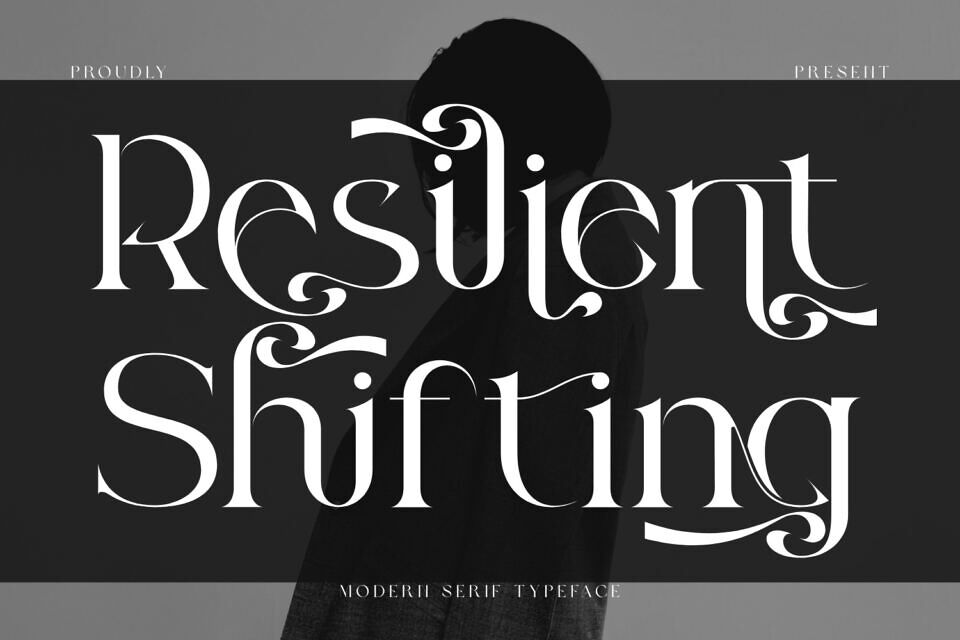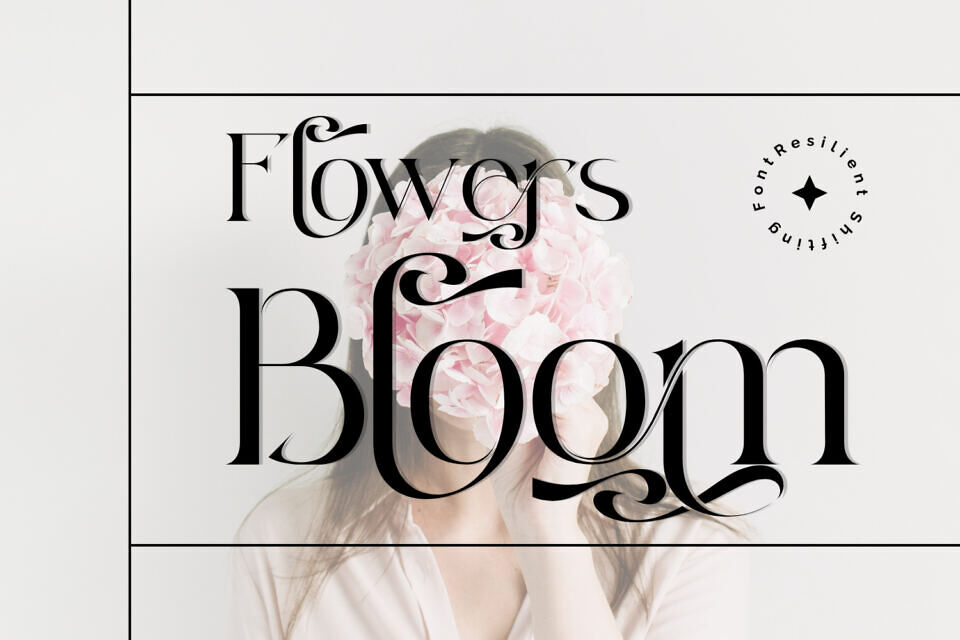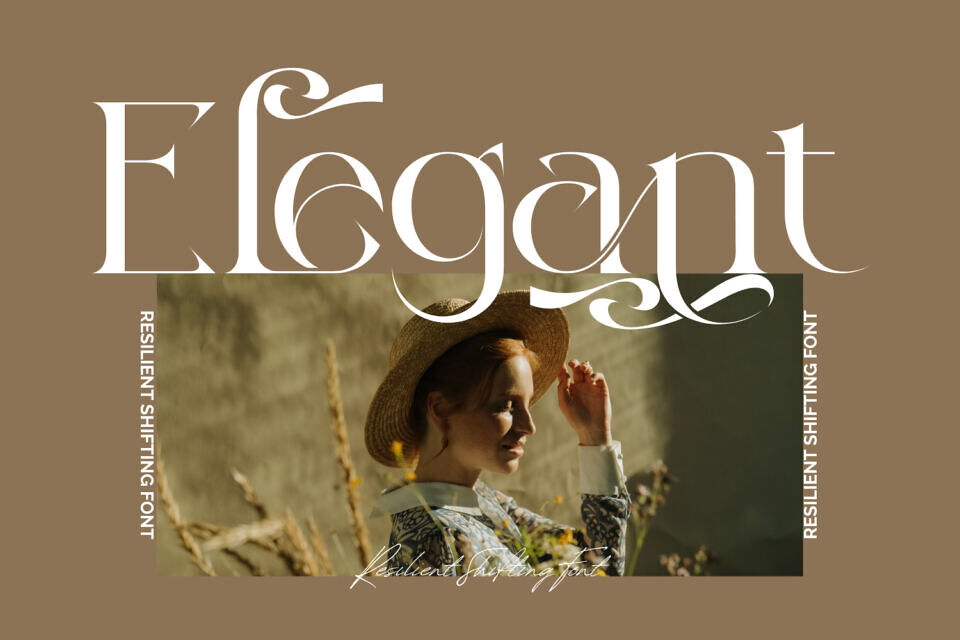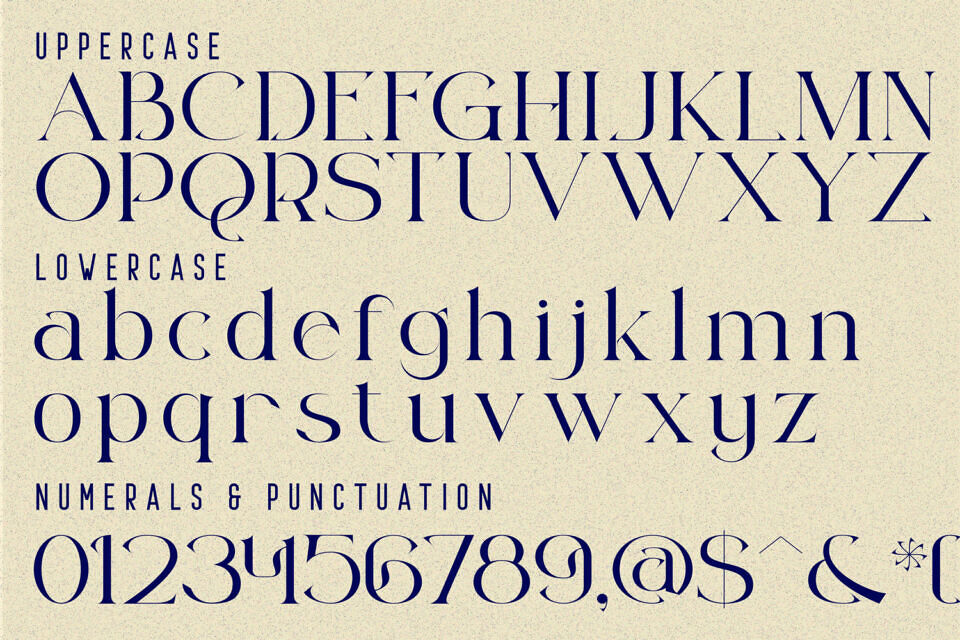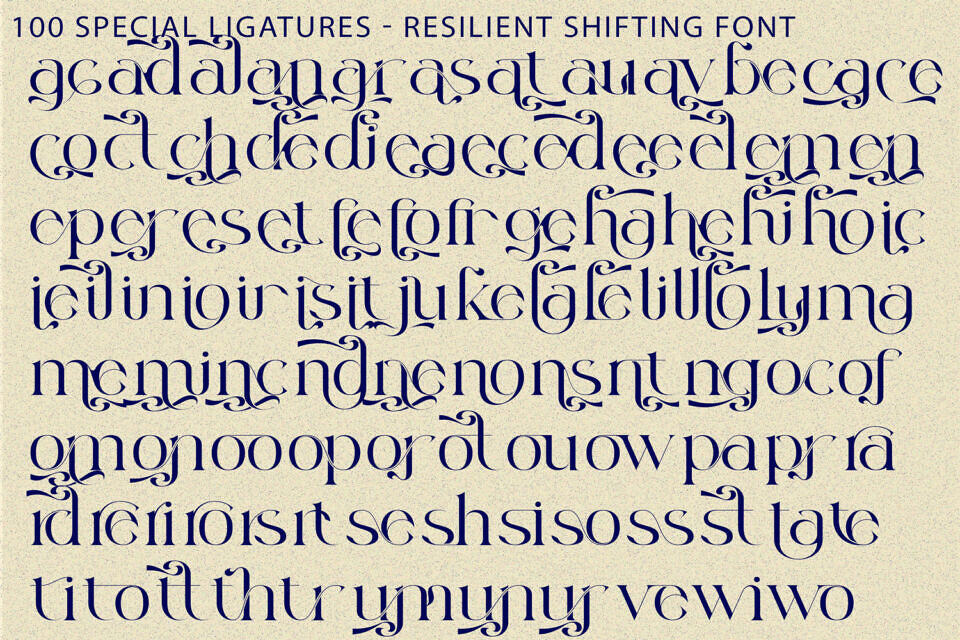
Resilient Shifting Font
Resilient Shifting is an elegant decorative serif typeface that beautifully combines timeless sophistication with artistic ornamentation. Featuring refined high-contrast strokes, graceful curves, and luxurious swash details, this font delivers a striking balance between classic elegance and modern style.
Inspired by luxury fashion editorials and romantic calligraphy, Resilient Shifting showcases beautifully sculpted letterforms adorned with flowing terminals, decorative curls, and sophisticated flourishes. Every character is carefully crafted to create a sense of movement, charm, and visual harmony while maintaining excellent readability.